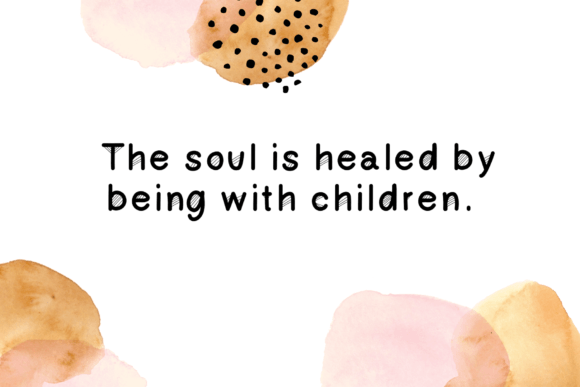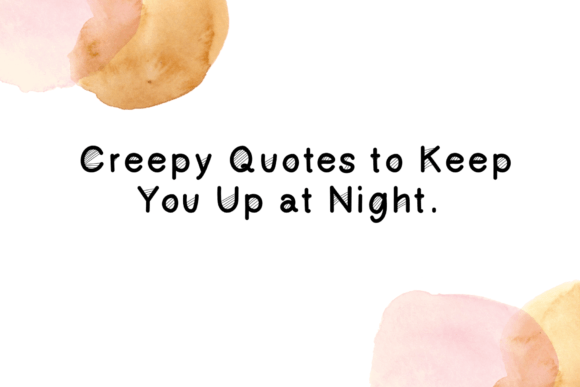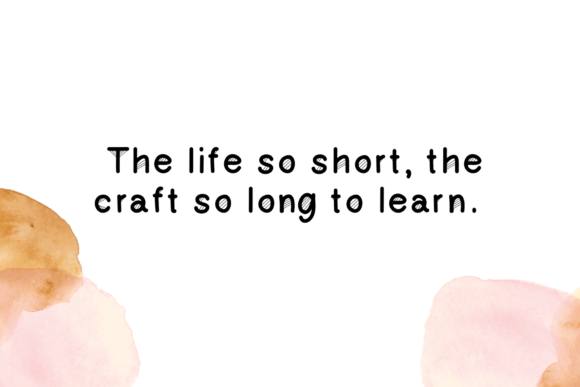
Bridge Font
About Bridge Font
“Bridge” font is a handwritten typeface adorned with lines, resembling the structure of a bridge. Its unique design makes it suitable for a variety of creative projects, particularly those related to education, craft, construction, and horror themes. The distinctive look of the font, resembling a bridge, adds an interesting and creative touch to your designs.
Whether you’re working on educational materials, crafting projects, construction-related content, or something with a horror theme, “Bridge” font can enhance the visual appeal and uniqueness of your text. Its decorative elements make it stand out, adding a creative and playful aspect to your design.
Consider incorporating “Bridge” font into your projects to give them a distinctive and engaging look. Its versatility allows you to experiment with different themes and styles, making it a great addition to your font collection for various creative endeavors.